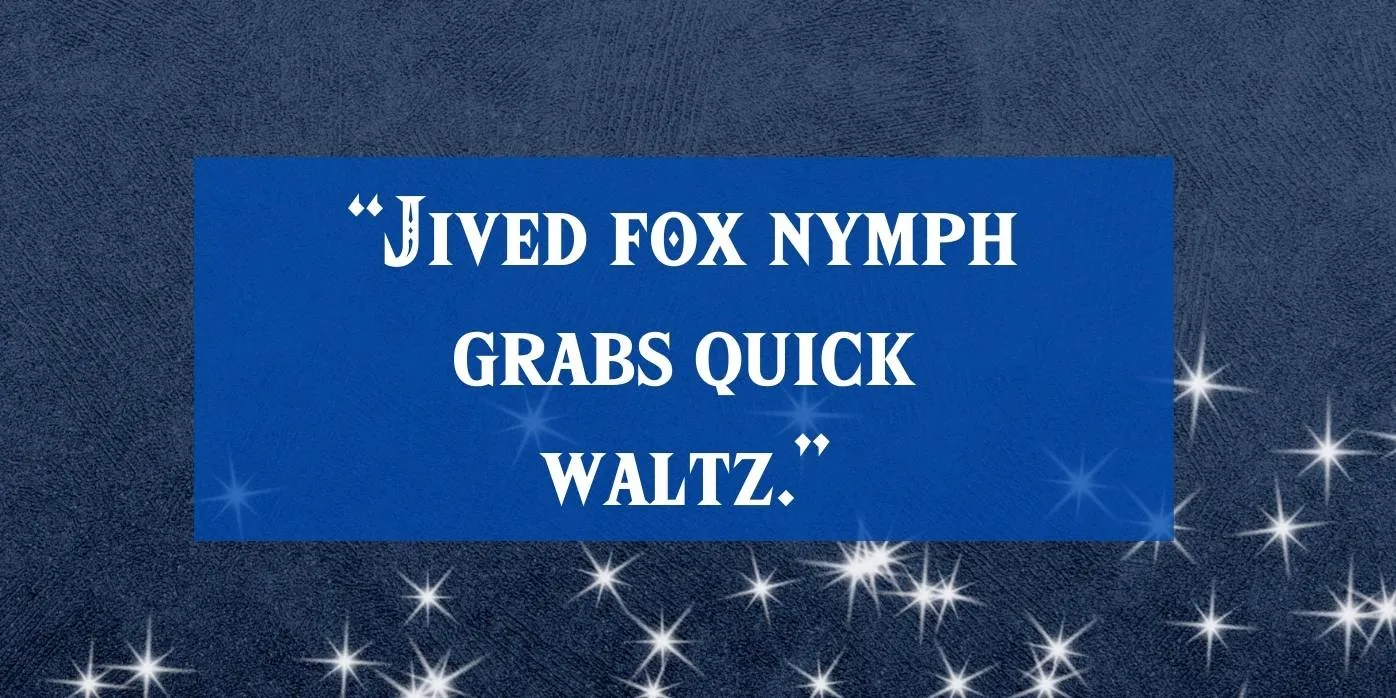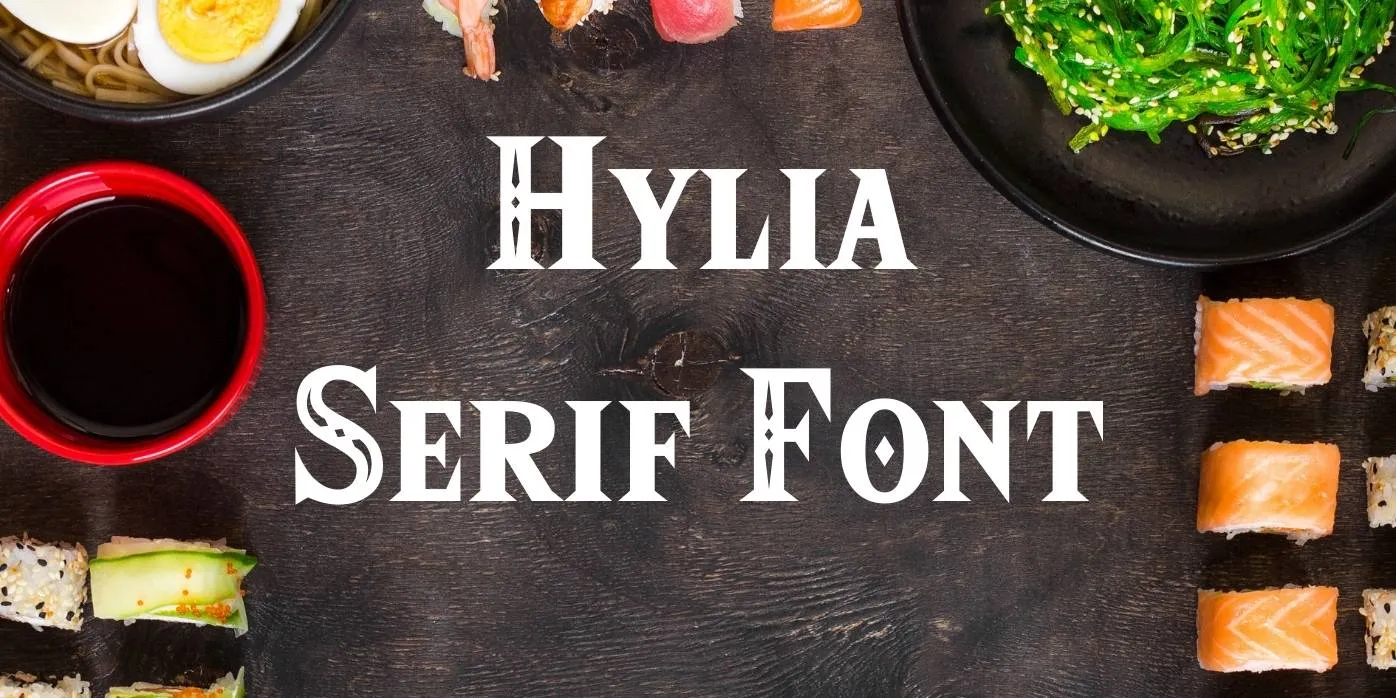
Hylia Serif Font
Hylia Serif Font is a classic and modern typeface that has been designed specifically for use on the web. It was developed by Jack Sullivan. It is a serif font, which means that it has the extra decoration that serif fonts often have. This makes it easier to read on screens, and it also saves space on your web page.
This awesome font has a great number of popular characters nearly equal to 250. These characters are available in various formats like TTF, OTF, WOFF, and WOFF2. Its copy and paste are more useful for different designs. Century Schoolbook Font is alternative to this stunning font family.
This stylish Font is a great choice for those who are looking for a modern serif font that is still easy to read on screens. It is also a good choice for those who want a classic look with a modern twist. This typeface consists of eight famous weights Thin, Light, Book, Regular, Medium, semi-bold, Bold, and Black. All of these weights come with italics.